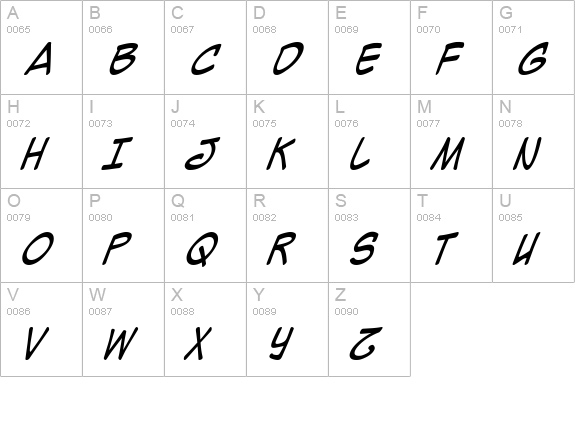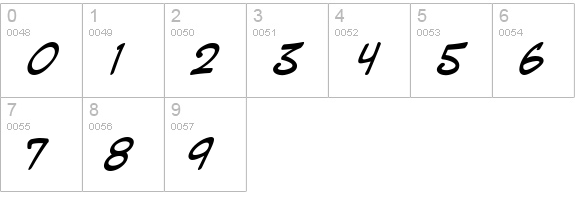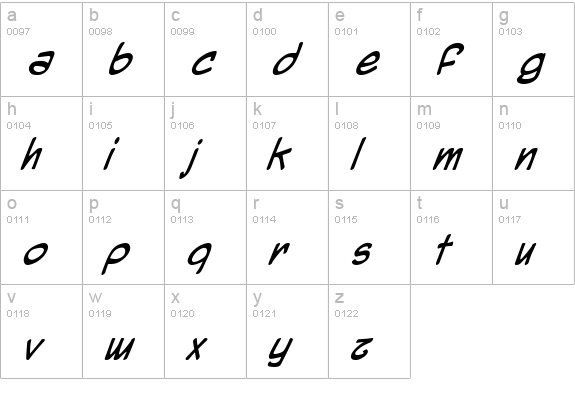
Mighty Zeo Italic is a distinctive, italic variant in the Mighty typeface family \xE2\x80\x94 well suited to design and typography projects.
Introducing Mighty Zeo Italic font, a striking and dynamic typeface that exudes power and confidence. Its bold strokes and sleek curves make a statement while maintaining a sense of elegance and sophistication. Perfect for titles, headlines, and branding projects, this font is sure to leave a lasting impression. What sets Mighty Zeo Italic font apart is not only its impressive design but also the fact that it is available for free download at FontsMarket.com. Yes, you read that right - this high-quality font can be yours at no cost, allowing you to elevate your projects without breaking the bank. Whether you're designing a logo, creating promotional materials, or crafting eye-catching social media graphics, Mighty Zeo Italic font is a versatile and powerful tool that will help you stand out from the crowd. Download it today and unleash the full potential of your creativity with this exceptional typeface.